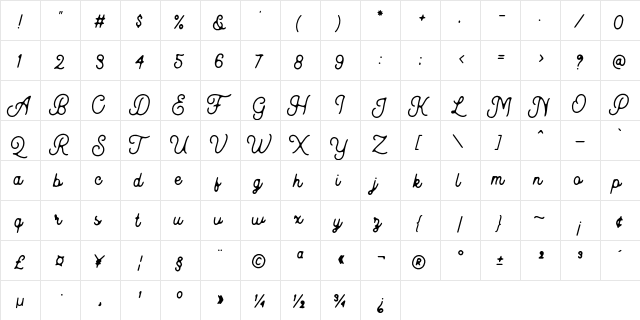
Kingbirds Rough
Design Context for Kingbirds Typeface
Kingbirds trades polish for personality, using distressed and eroded forms to bring grit and attitude to creative work.
Suited to punk-influenced zines, underground music branding, streetwear, and raw, anti-corporate design.
Pro Tip: Pair Kingbirds with intentionally raw or lo-fi design elements. Fighting against it with overly polished surroundings will undermine its personality.